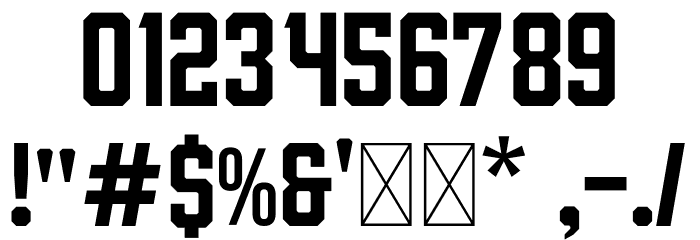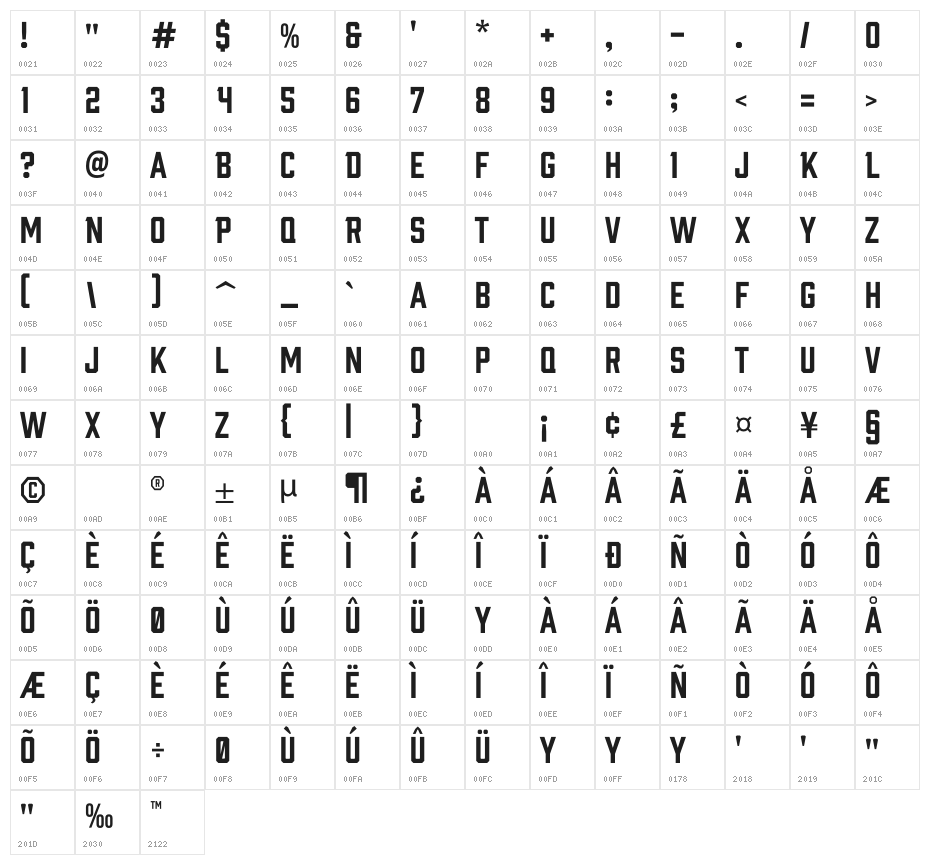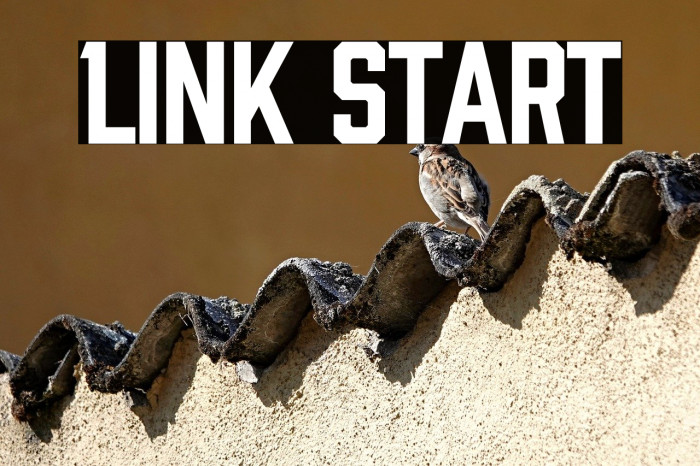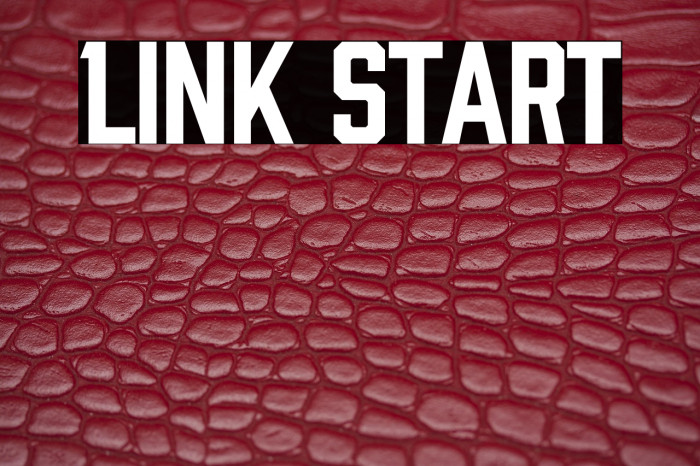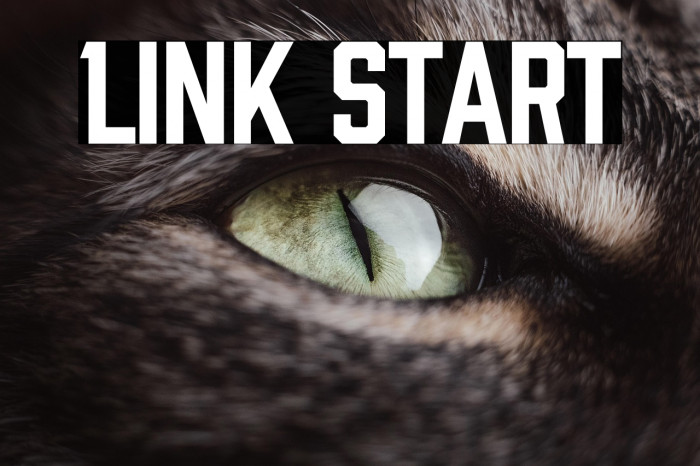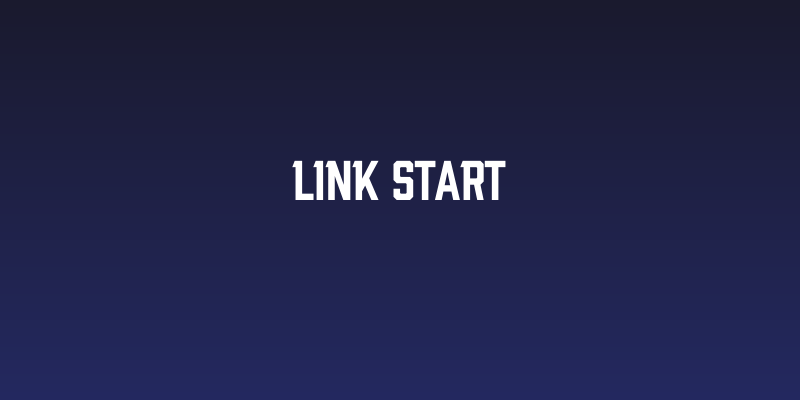
Link Start Font
Link Start Description
This font features a bold and geometric design with strong, angular lines and a blocky appearance. The uppercase letters are uniform in height, creating a cohesive and structured look. The numerals are equally bold, maintaining the geometric style. Special characters are designed to match the overall aesthetic, with sharp edges and a consistent weight throughout. This font is highly legible and commands attention, making it suitable for impactful designs.